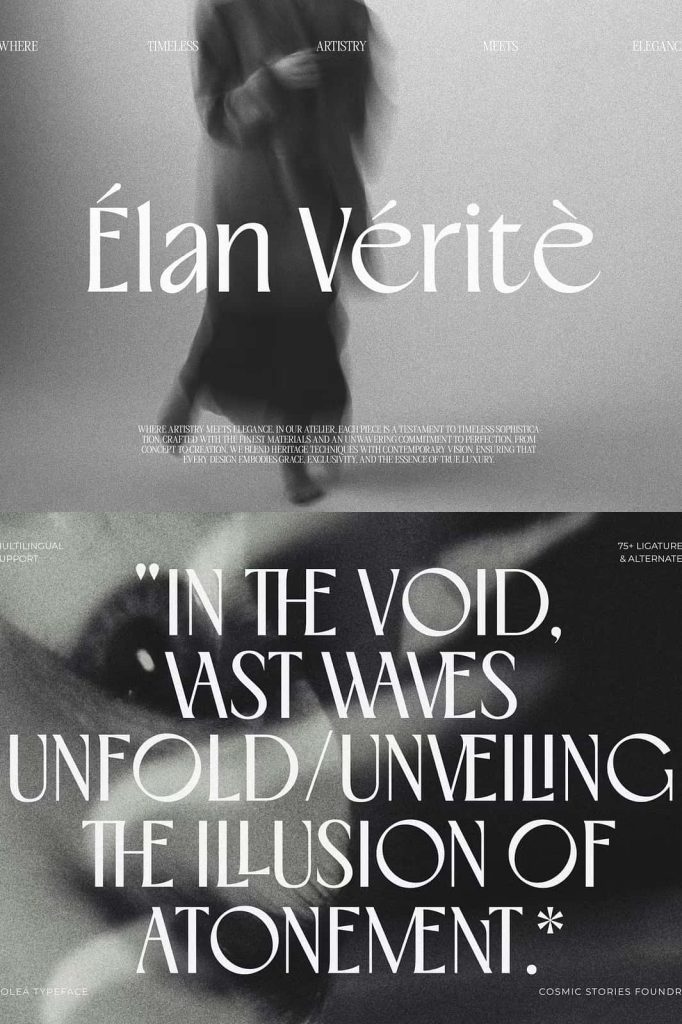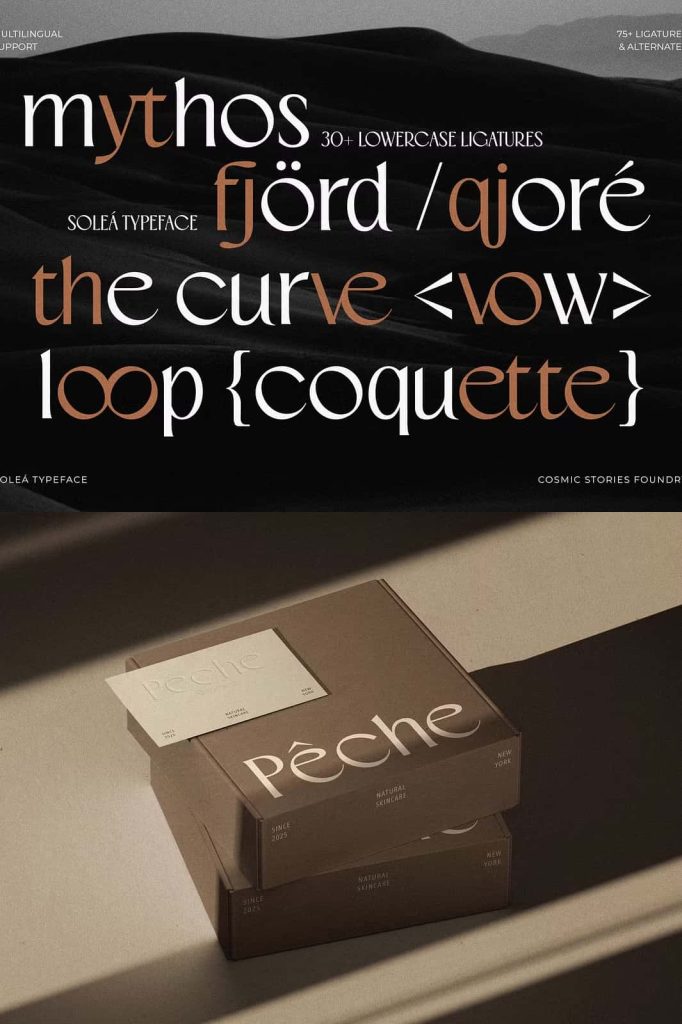
Soleá – Modern Sans Serif Typeface
Soleá is a modern sans serif typeface that redefines elegance through clarity, balance, and intentional simplicity. Designed with a minimalist approach, Soleá delivers a clean and confident visual voice that feels contemporary and refined. Every detail in the letterforms serves a purpose, allowing the typeface to communicate sophistication without unnecessary decoration. This makes Soleá a powerful tool for designers who value precision, versatility, and modern aesthetics.
Minimalist Design with Refined Contrast
At the core of Soleá is a minimalist design philosophy. The typeface uses clean lines, balanced proportions, and subtle contrast to create a harmonious visual rhythm. Instead of relying on dramatic shapes, Soleá achieves elegance through restraint. The refined contrast between strokes adds character while preserving a smooth and readable structure.
This careful balance allows Soleá to perform exceptionally well across a wide range of design contexts. The letterforms maintain clarity at both large and small sizes, ensuring consistent readability. Whether displayed prominently in headlines or used in supporting text, Soleá remains composed and visually engaging.
Built for Sophistication and Versatility
Soleá was created to meet the demands of modern design workflows. Its versatile construction allows designers to use the typeface across multiple platforms and mediums without compromising style or functionality. From digital interfaces to print materials, Soleá adapts seamlessly while maintaining its refined presence.
The typeface supports cohesive visual systems, making it an excellent choice for long-term branding and identity projects. Designers can rely on Soleá to establish consistency and professionalism while still allowing room for creative expression. Its understated elegance helps brands communicate confidence and clarity.
Perfect for Logo Design and Brand Identity
In logo design, Soleá delivers a strong yet subtle personality. Its modern sans serif structure helps logos appear clean, timeless, and adaptable. Brands that value clarity, innovation, and sophistication benefit from Soleá’s balanced character. The typeface enhances brand recognition by presenting text that feels intentional and well-crafted.
Soleá also works exceptionally well in complete brand identity systems. From primary logos to secondary typography, the font maintains visual unity and supports consistent messaging. Its modern aesthetic aligns well with creative studios, technology companies, lifestyle brands, and cultural institutions.
Effective for Headlines and Editorial Layouts
When used in headlines, Soleá commands attention through simplicity and structure. Its clean forms create clear typographic hierarchy, guiding readers through content with ease. The refined contrast adds visual interest without overwhelming the layout, making headlines feel confident and polished.
In editorial layouts, Soleá enhances readability and flow. Magazines, websites, and publications benefit from its balanced spacing and legible forms. The typeface supports storytelling by keeping the focus on content while reinforcing a modern and professional tone.
A Contemporary Typeface for Modern Designers
Soleá stands as a contemporary sans serif typeface designed for designers who appreciate thoughtful typography. It bridges the gap between form and function, delivering elegance through simplicity and performance. The typeface adapts effortlessly to different design needs, from bold visual statements to subtle supporting roles.
By choosing Soleá, designers gain a modern sans serif typeface that elevates visual communication through refined contrast and minimalist design. It empowers brands and creatives to present their ideas with clarity, sophistication, and confidence. Soleá transforms typography into a strategic design element, supporting modern identities and expressive layouts across every platform.